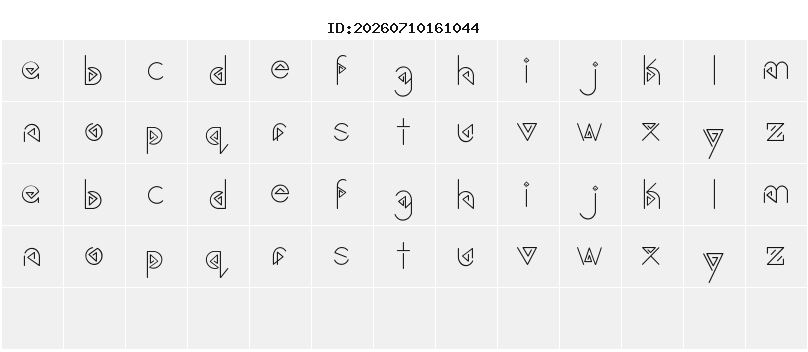
• Font Name: gardyn
• Designer: Sarah Horgan
gardyn.ttf is a modern, elegant sans-serif font designed for ultimate readability and visual harmony. Perfect for branding, headlines, web design, and print materials.